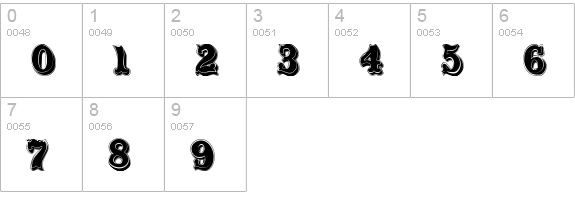
Carnival MF Rimmed Font Details
Carnival MF Rimmed is a whimsical and playful font that captures the spirit of a vibrant carnival atmosphere. With its unique combination of bold lines and intricate details, this font is sure to add a touch of fun to any project. The intricately designed rimmed edges give it a dynamic and eye-catching appearance, making it perfect for headlines, posters, and other display purposes. And the best part? Carnival MF Rimmed is available for free download at FontsMarket.com. You can easily add this charming font to your collection and use it in your designs without any cost. So why wait? Download Carnival MF Rimmed today and bring a sense of joy and excitement to your creative projects!